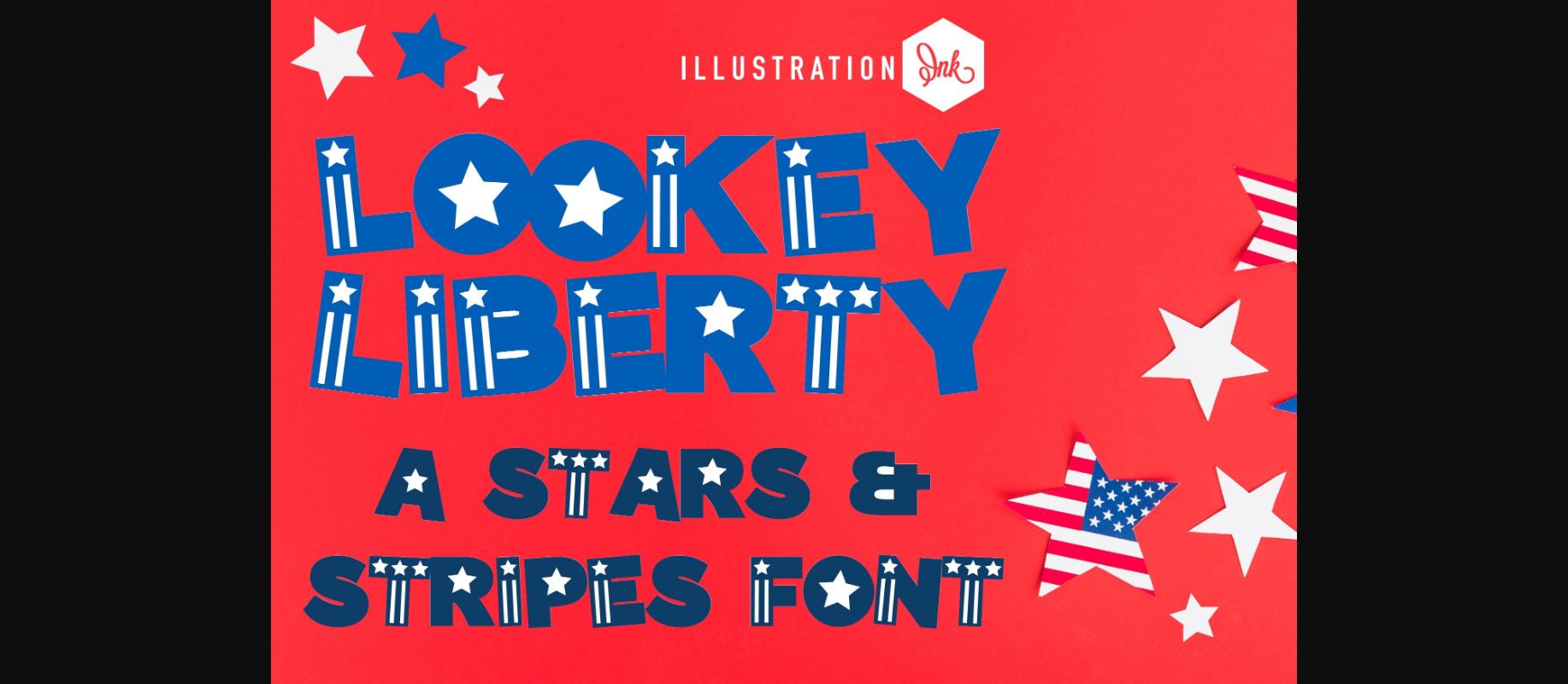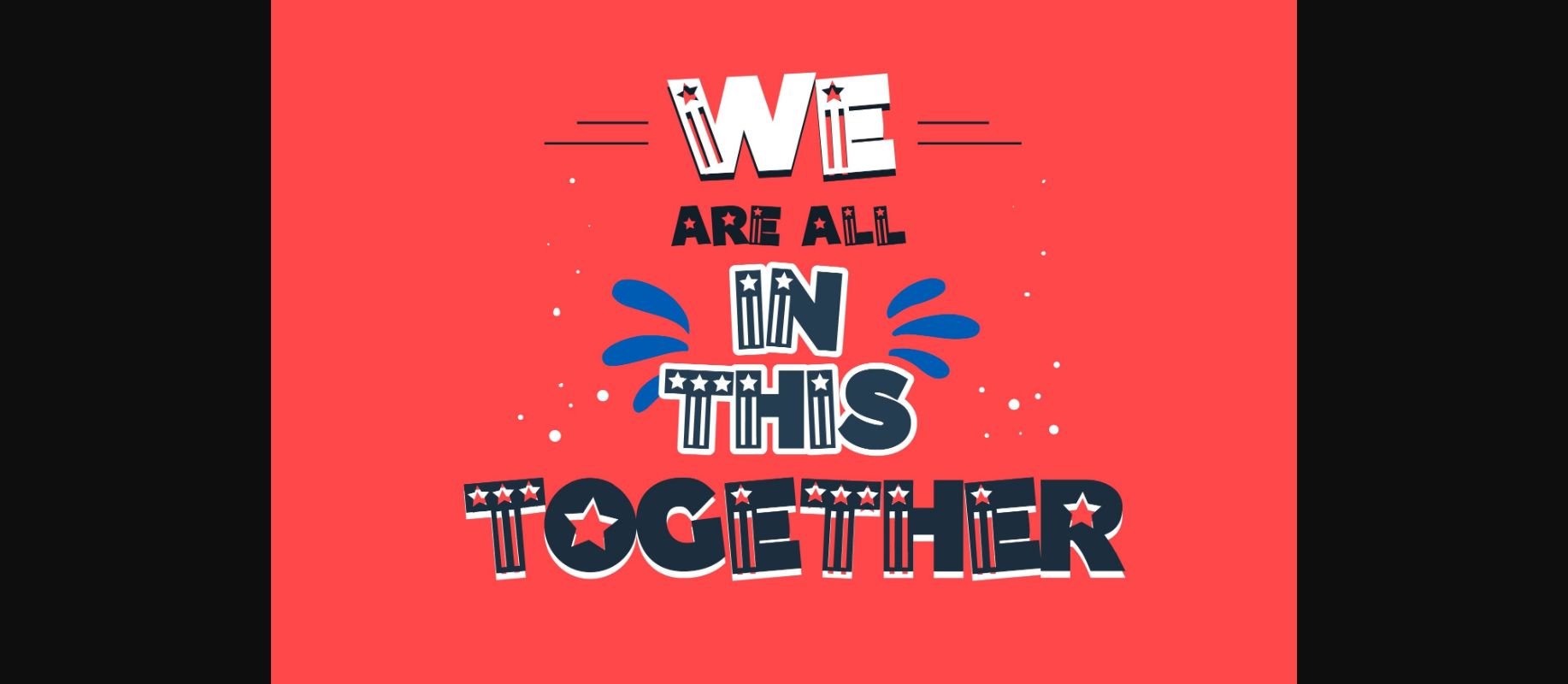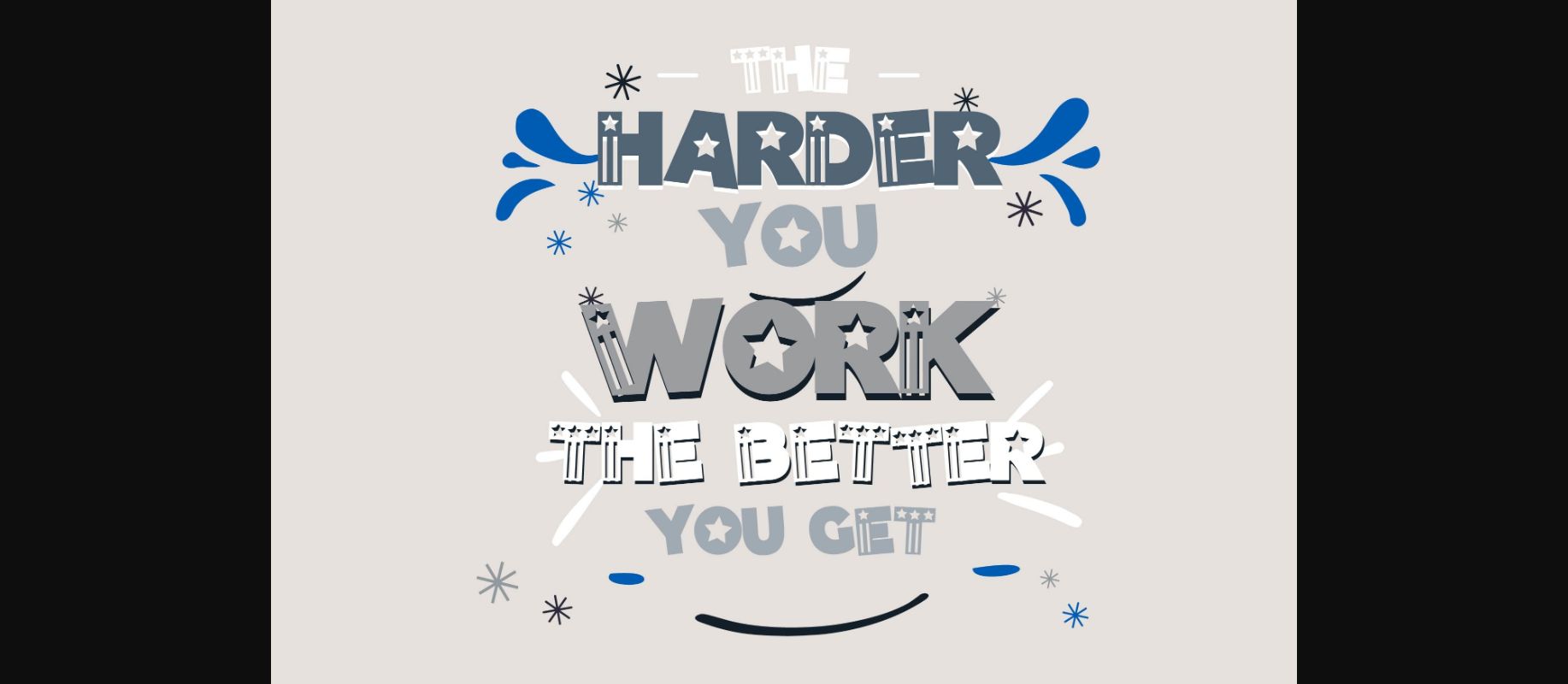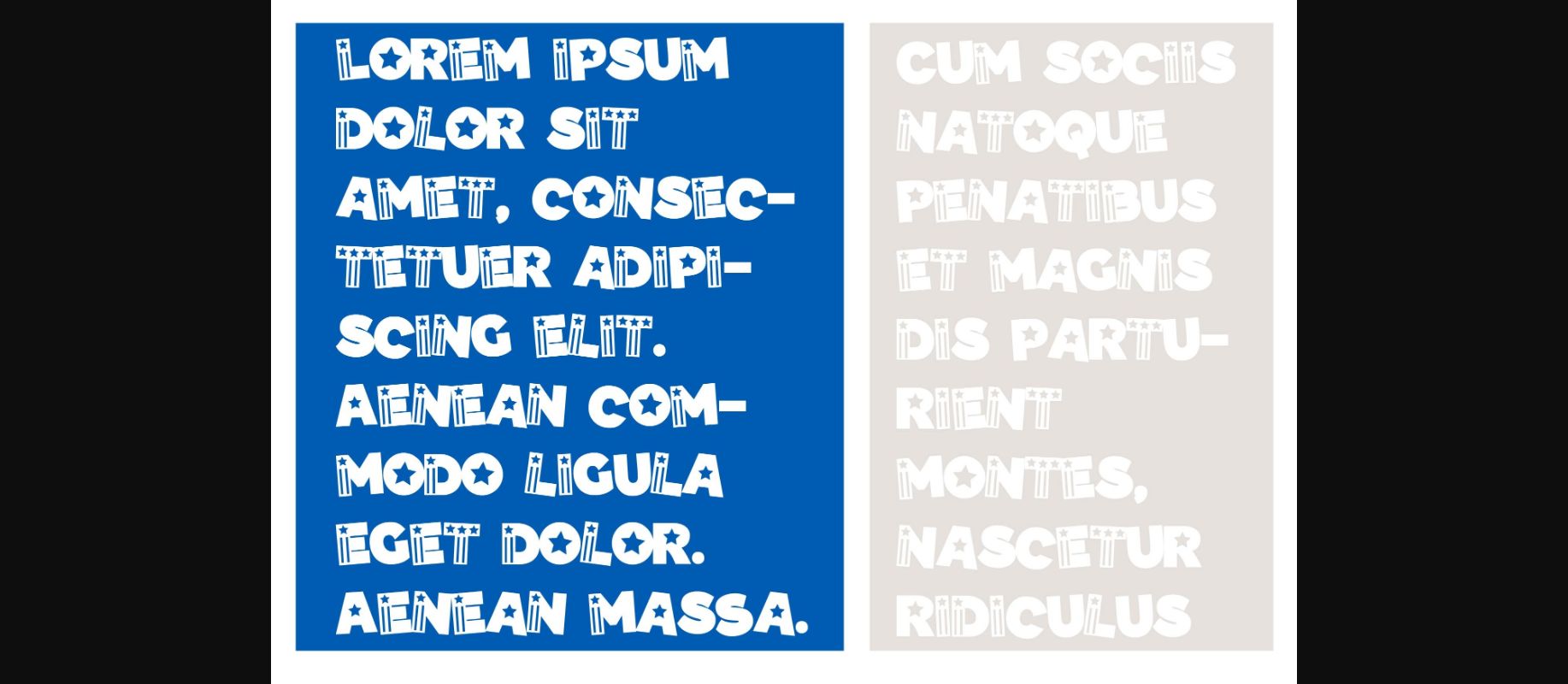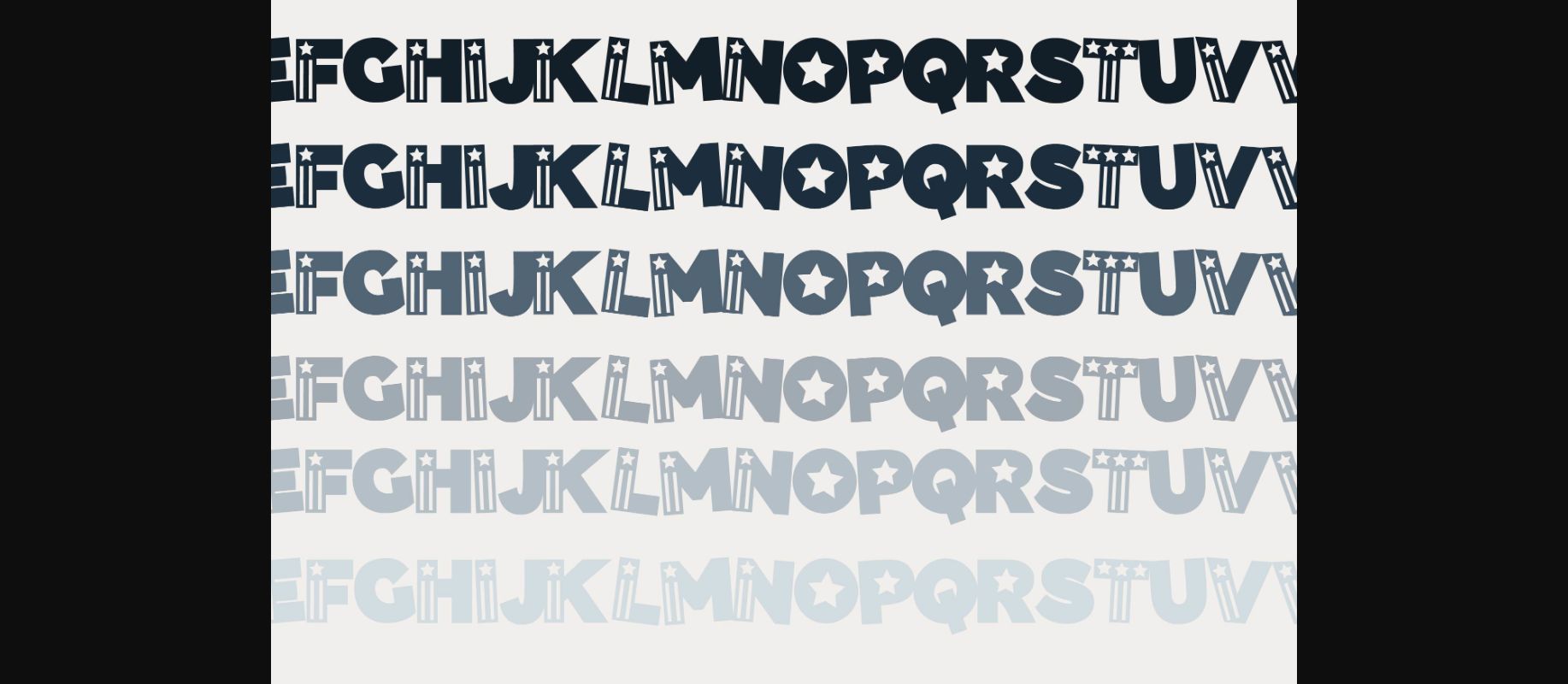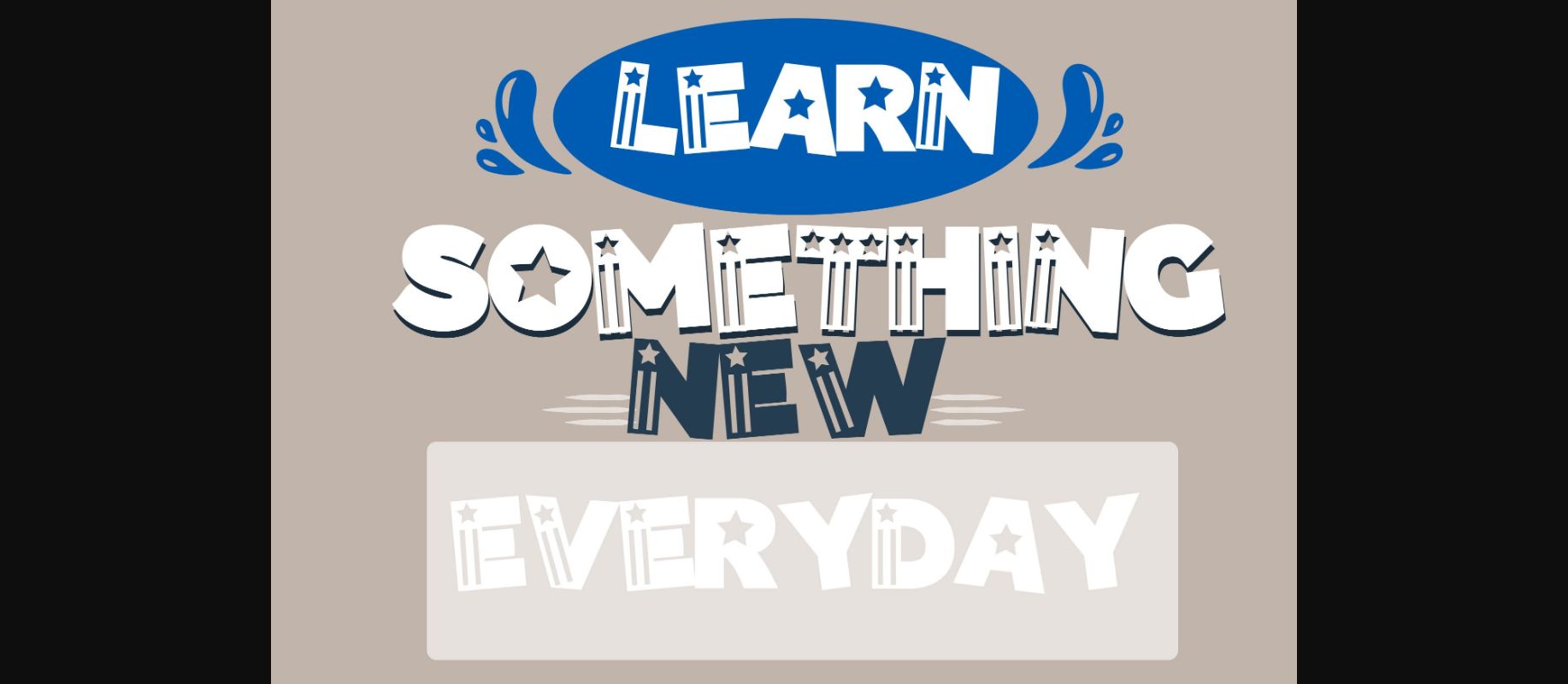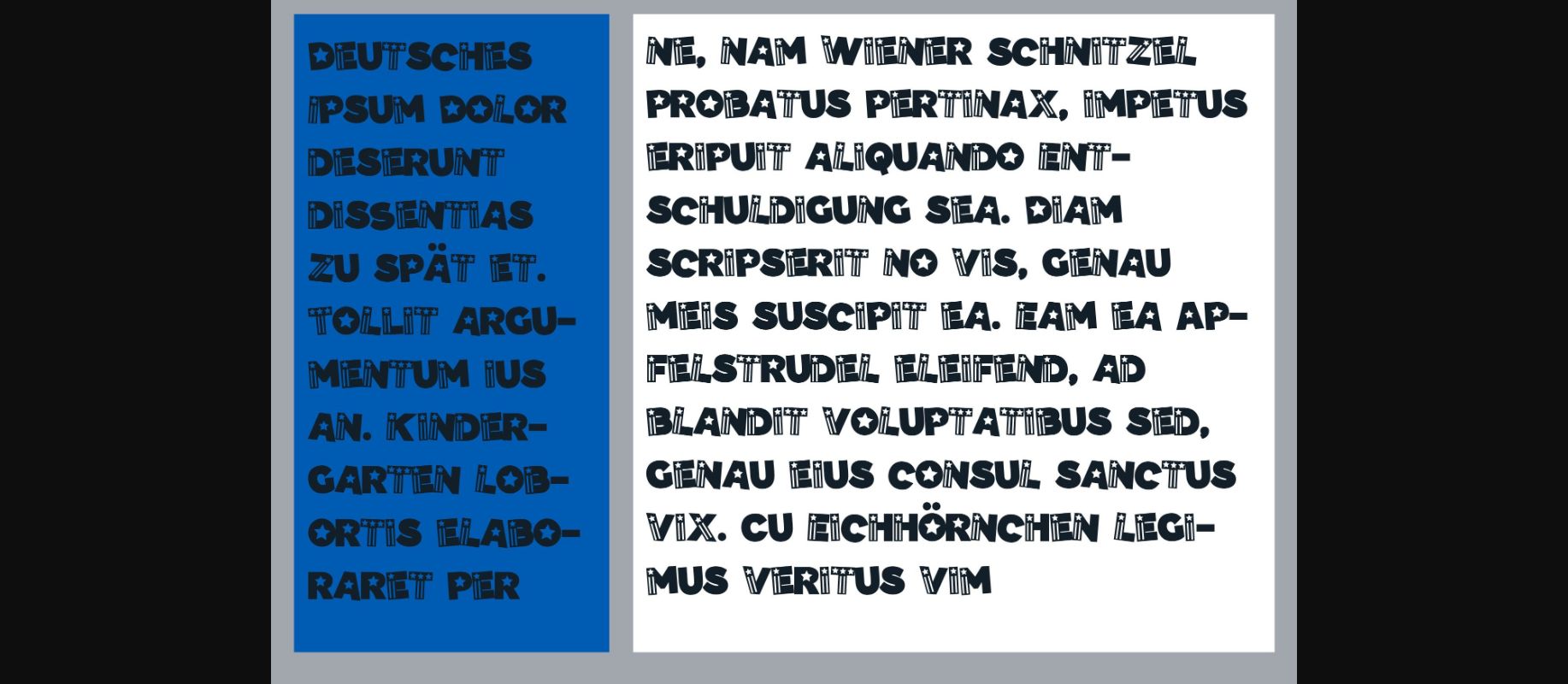
Lookey Liberty Font
About Lookey Liberty Font
Lookey Liberty is a captivating decorative font that embodies the spirit of stars and stripes. This unique typeface combines the elegance of stars with the timeless allure of stripes, creating a visually striking and patriotic design. Each letter is adorned with delicate stars and carefully placed stripes, lending a touch of whimsy and charm to any text. Whether you’re designing invitations, banners, or creative projects with a patriotic theme, Lookey Liberty is the perfect choice to add a touch of magic and celebrate the stars and stripes in style.